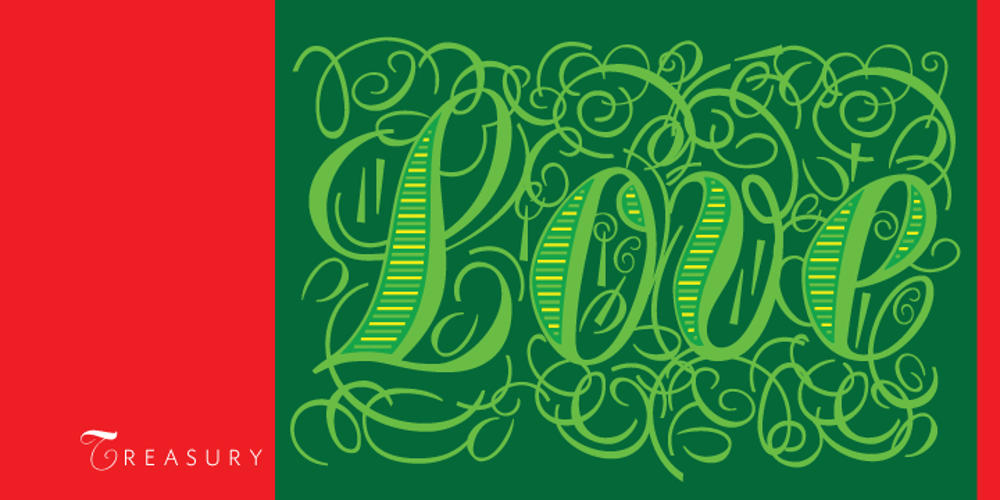
Treasury Font Family was designed by Hermann Ihlenburg, Rebecca Alaccari, Patrick Griffin and published by Canada Type. Treasury contains 58 styles and family package options. The Treasury script waited over 130 years to be digitized, and the Canada Type crew is very proud to have done the honors. And then some. After seven months of meticulous work on some of the most fascinating letter forms ever made, we can easily say that Treasury is the most ambitious, educational and enjoyable type journey we’ve embarked upon, and we’re certain you will be quite happy with the results. Treasury goes beyond being a mere revival of a typeface. Though the original Treasury script is quite breathtaking in its own right, we decided to bring it into the computer age with much more style and functionality than just another lost script becoming digital. The Treasury System is an intuitive set of fonts that takes advantage of the most commonly used feature of today’s design software: Layering. Please do help yourself to the PDF and images in the MyFonts gallery for a quick look at the some of the limitless possibilities Treasury has to offer, from simple attractive elegance expressed in the main script, all the way into mysteriously magnificent calligraphic plates. To date in digital type history, this is the most comprehensive and versatile work of its kind. Every designer loves many options to experiment. Experimentation has never been as much fun and productive as it is with Treasury. If you’re “compudling” your initial ideas for a layout, or you’re just an alphabet fan who loves spending time with letters, working with Treasury is very inspiring and fulfilling. Some of Treasury’s features are: – No more endless searching for initial caps that fit your project. The Treasury System lets you build your own initial caps, in any combination of colors, fills, linings or dimensions you like, with a few simple clicks of the mouse. – With two base styles and nine layer fonts, the Treasury System set helps you produce endless possibilities of alternation and variation in dimension, color, and calligraphic combinations to fit your layout’s exact needs, down to the very last detail. – 12 pre-combined Treasury fonts are also there to help and inspire layout artists who love shortcuts and don’t want to fiddle with too many layers in their layout. Available in small packages on their own, or as part of the complete Treasury package, these 12 fonts can start you up on your way to discovering the perfect fit for your layout. – Every single letter in the Treasury System comes with at least one alternative. Some characters have even three or four alternates. Although the main character set is an authentic rendition of Ihlenburg’s 1874 classic, we made sure to include a treasure trove of alternates for maximum usability. – The most gorgeous set of numerals we have seen in a long, long time. The Treasury numbers are what really turned us onto this project in the first place. – Treasury Pro, the incredibly sophisticated OpenType version, combines the complete Treasury System into a single font, programmed for compatibility with Adobe’s latest CS and CS2 software programs. Over 2000 characters in one font, for thousands of possibilities. Setting the ideal elegant wordmark, logotype, intitial cap, or headline, no matter how simple or complex, is as easy as taking a minute or two to push a few buttons in Illustrator, Photoshop, or InDesign. We can go on endlessly about the beauty and functionality of this Treasury set, but we really cannot do it justice with words. So try Treasury for yourself and see the amazing possibilities of fun and creativity it has. It can be used pretty much anywhere – signs, book covers, certificates, music inserts, movie posters, greeting cards, invitations, etc. Much thanks are due to the generous and considerable help Canada Type received from the Harvard Library in Boston, Klingspor Museum in Frankfurt, and many type hobbyists and researchers in Canada, England, Germany, the Netherlands, and the United States. Without them it would was near-impossible to track down the lost history of Hermann Ihlenburg, the most prolific German/American type designer and punch cutter of the 19th century. We hope Mr. Ihlenburg is proudly smiling down on us from type designer heaven.